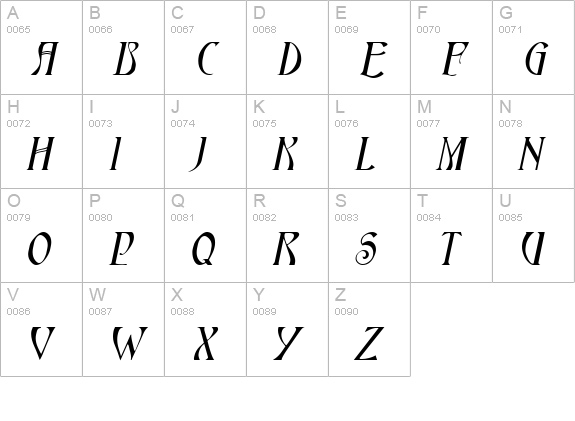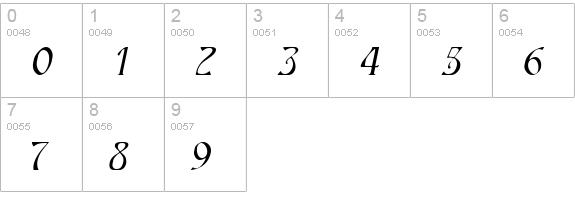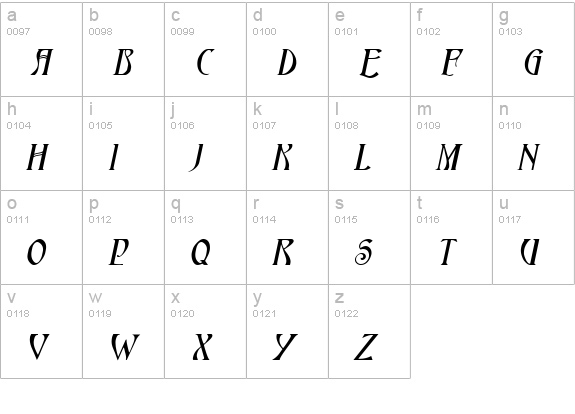
NouveauExtended Italic Font Details
NouveauExtended Italic is a distinctive, italic variant in the NouveauExtended typeface family \xE2\x80\x94 well suited to design and typography projects.
NouveauExtended Italic is a sleek and elegant font that exudes sophistication and modernity. Its slanted design adds a touch of flair to any project, making it ideal for creative and contemporary designs. The flowing curves and unique letterforms of NouveauExtended Italic make it a standout choice for branding, advertising, and editorial projects. What makes NouveauExtended Italic even more appealing is that it is completely free to download at FontsMarket.com. This means that you can access this stylish font without any cost, making it a valuable addition to your font collection. Whether you are a designer, artist, or enthusiast looking to elevate your projects with a touch of sophistication, NouveauExtended Italic is the perfect choice for you. Download it today and unleash your creativity with this stunning typeface.